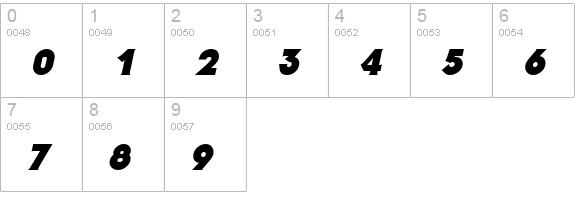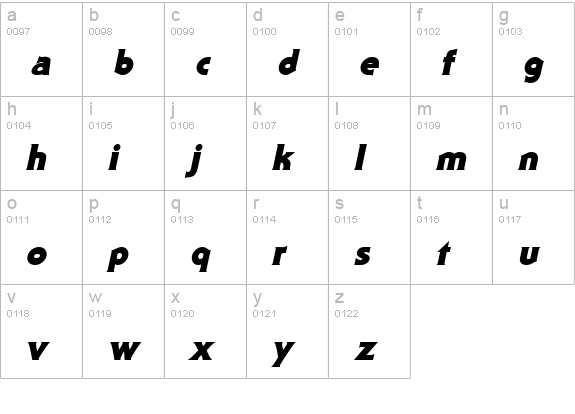
Staid Gothic Black Italic is a maximum-weight, dramatic, italic variant in the Staid typeface family \xE2\x80\x94 well suited to maximum-impact headlines, posters, and packaging.
Introducing the captivating Staid Gothic Black Italic font, a masterpiece of typographic elegance and modernity. With its bold and edgy design, this font exudes a sense of strength and sophistication, making it the perfect choice for projects that demand attention and leave a lasting impression. Crafted with meticulous attention to detail, Staid Gothic Black Italic strikes a harmonious balance between the timeless Gothic style and a contemporary twist. The slanted italics add a touch of dynamism and flair to the already commanding letterforms, creating a visually striking and versatile font that effortlessly captures attention. With its generous x-height and carefully crafted letter spacing, Staid Gothic Black Italic ensures optimal legibility across various mediums, from print to digital. Whether used for headlines, titles, logos, or branding materials, this font commands attention and elevates any design to new heights. But what truly sets Staid Gothic Black Italic apart is its availability as a free download at FontsMarket.com. Yes, this extraordinary font is freely accessible, allowing designers, creatives, and enthusiasts alike to unleash their creativity without any limitations. FontsMarket.com offers a hassle-free experience, providing immediate access to this exceptional font and a vast collection of other remarkable typefaces. So, if you're searching for a font that effortlessly combines strength, elegance, and a touch of rebellion, look no further than Staid Gothic Black Italic. Download it for free at FontsMarket.com, and let your imagination run wild as you explore a world of possibilities with this captivating typographic gem.